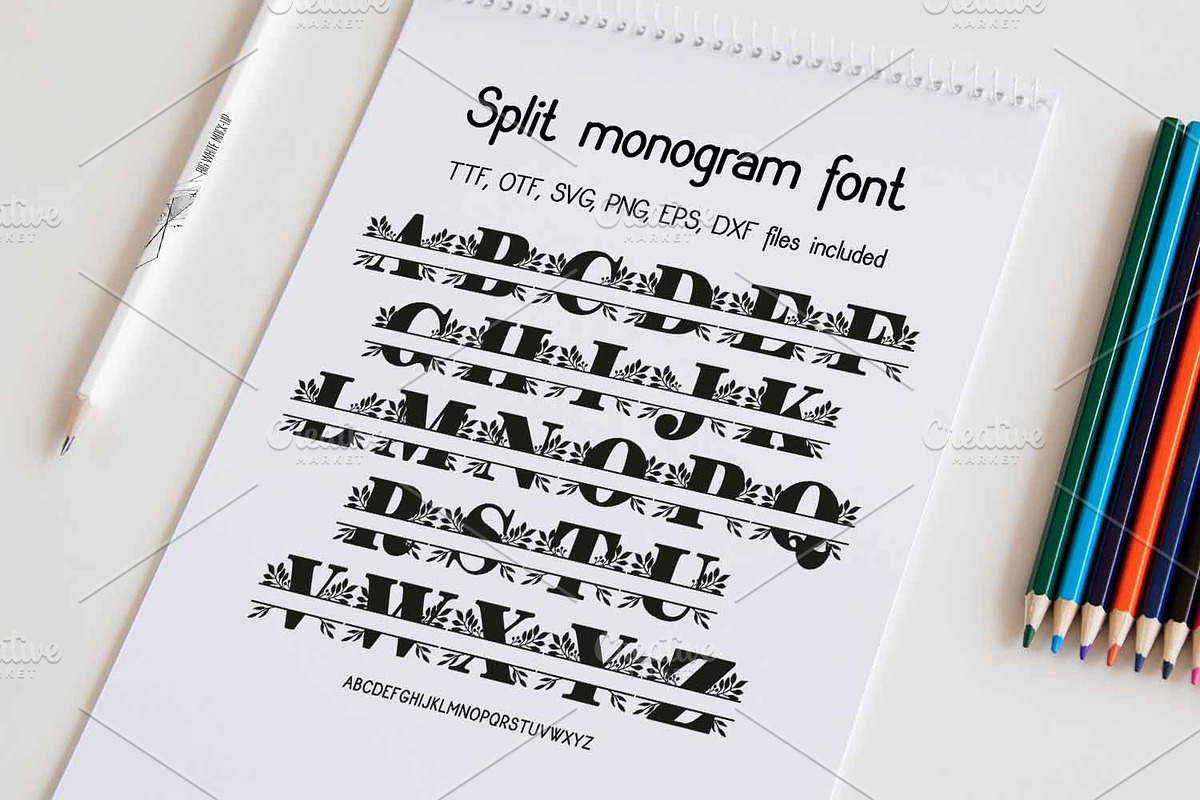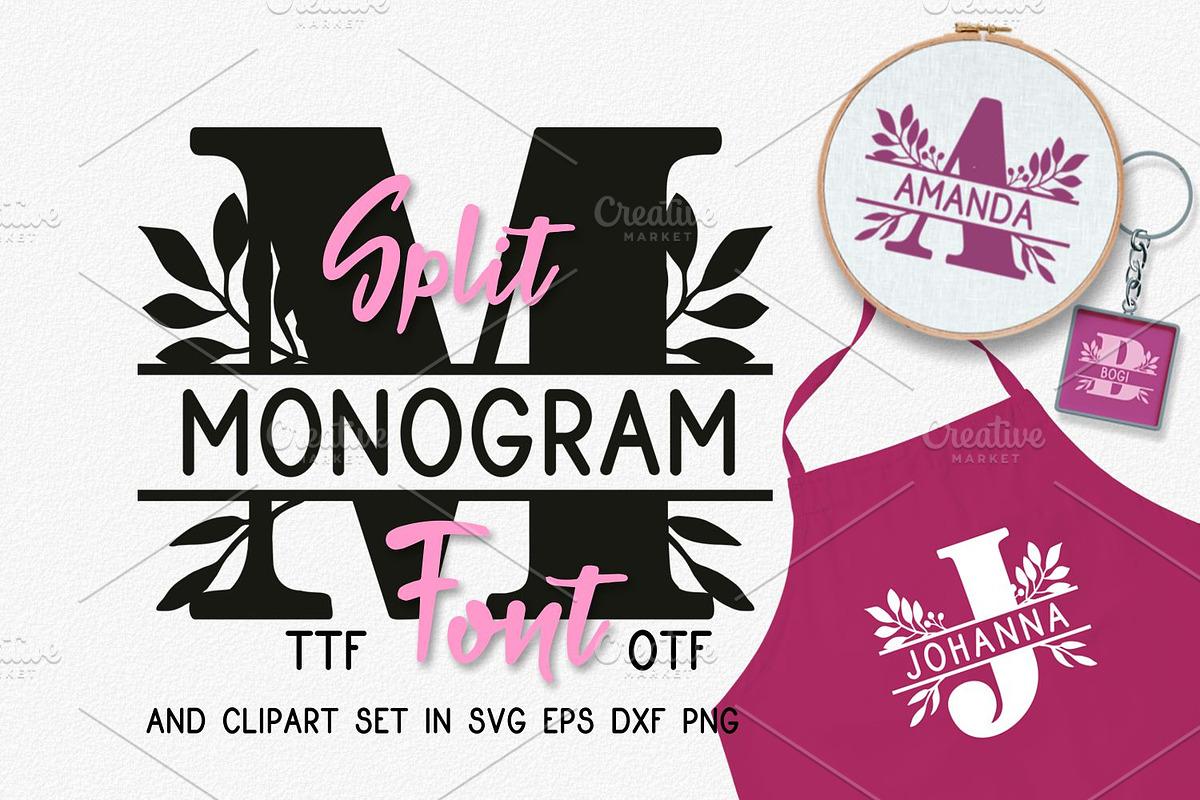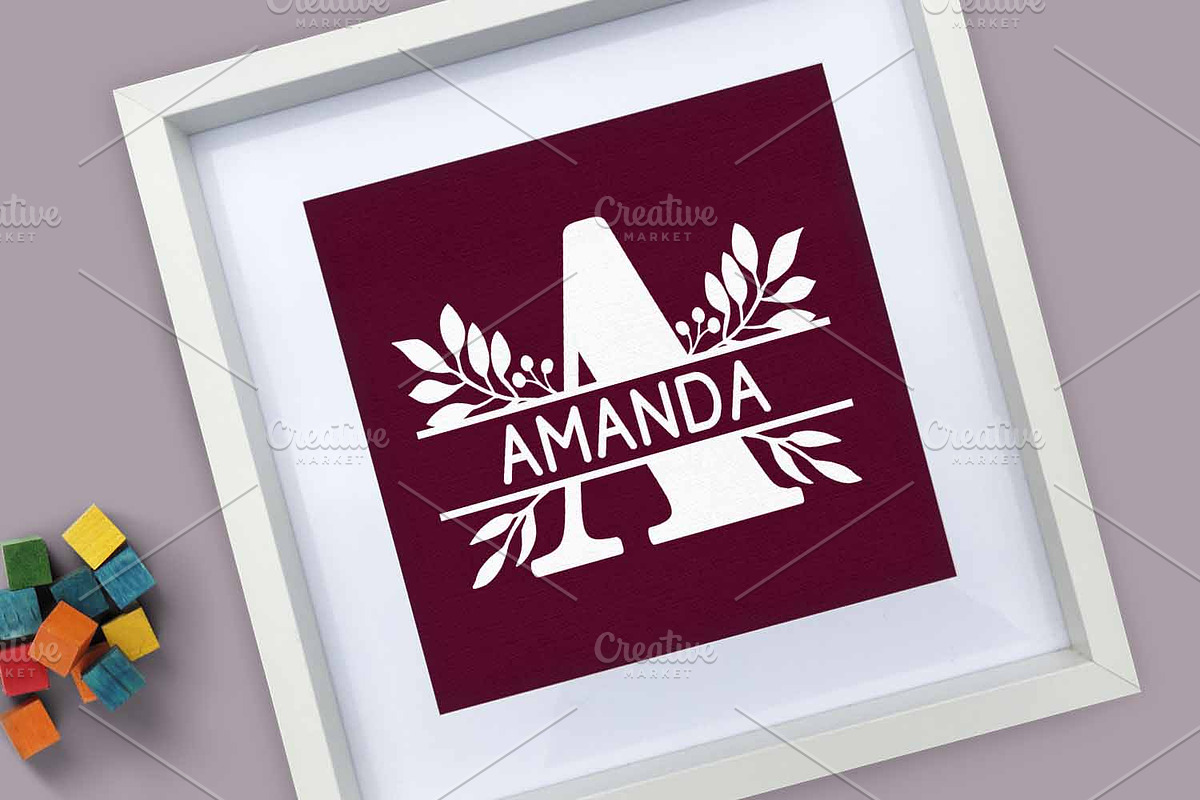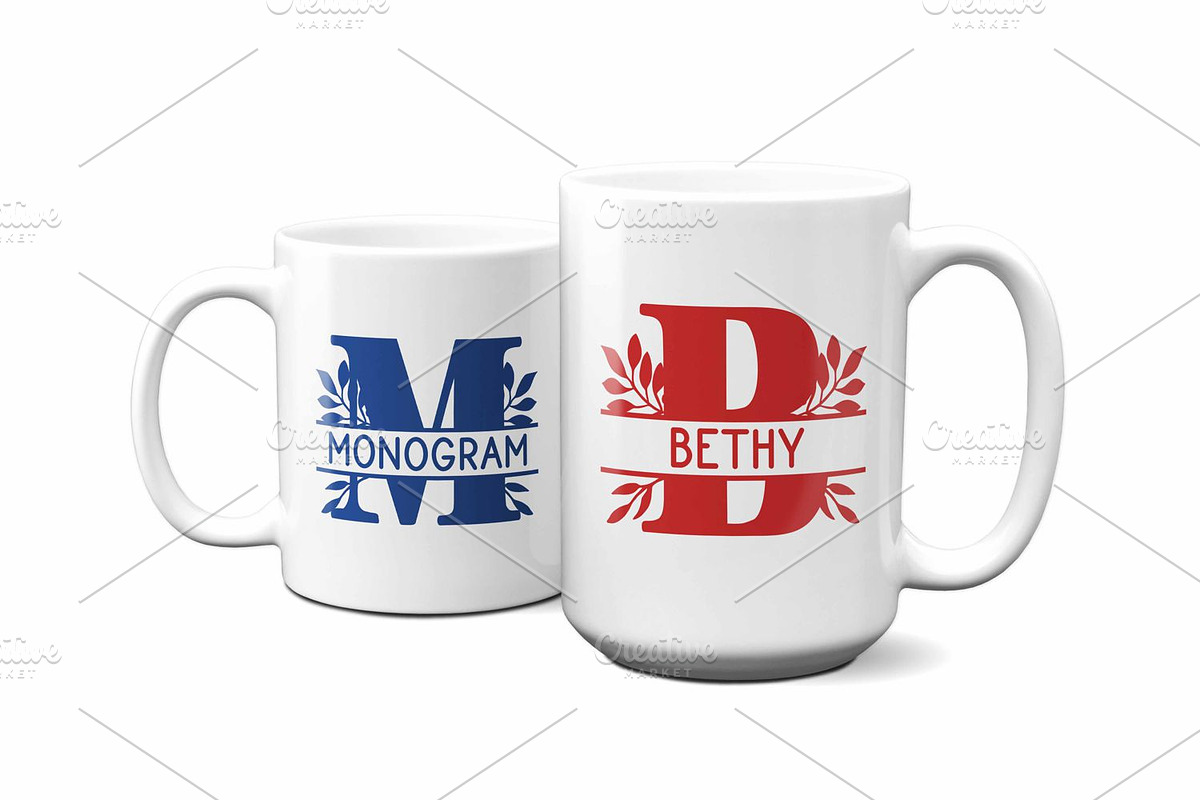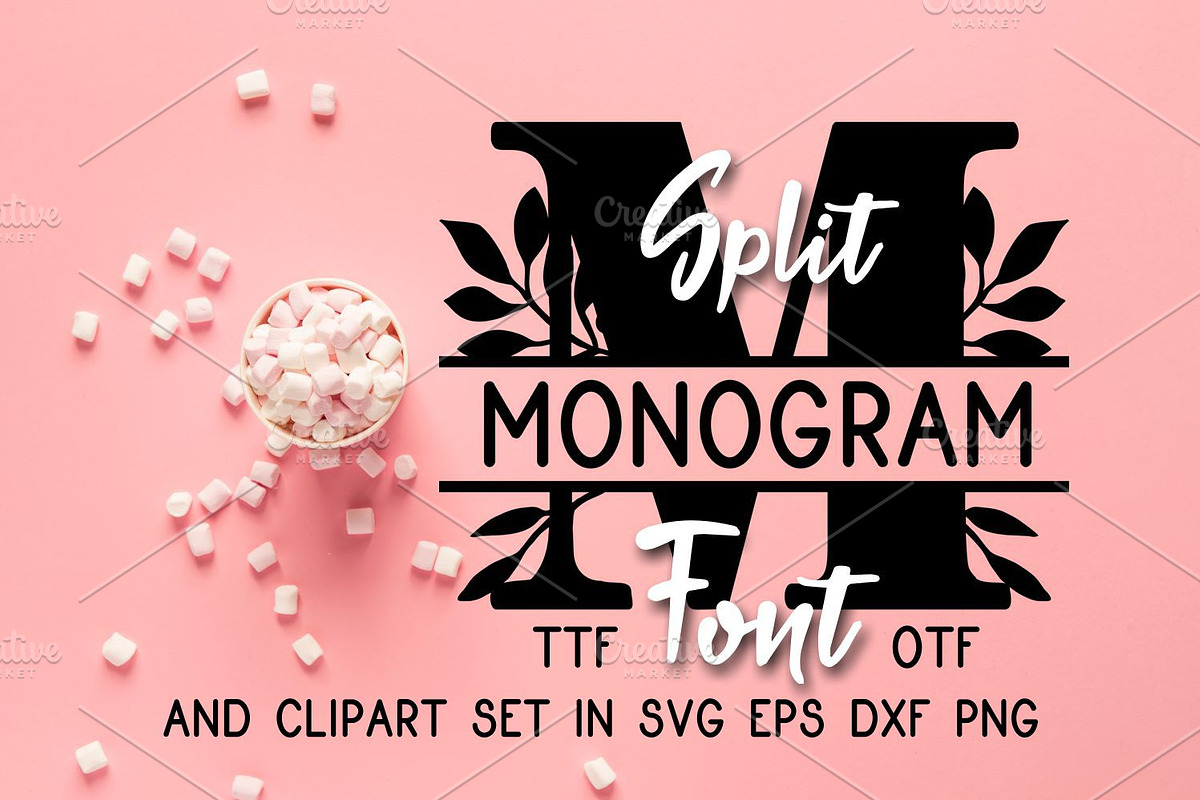
Bogi Split Monogram
Bogi Split Monogram font is a great helper for a vary of craft, sublimation or print projects.
Use uppercases for the split monograms and lower cases for the name.
Tip for getting the monogram and name together: Type the Monogram letter (use upper cases) for the split letter and use lower cases for the name you want it to be in the center of the blank part. As the size fixed, you have nothing else to do but grab the name and pull it to the center of the split letter. Enjoy!
Bogi Split Monogram by Digital Typeface Studio fits naturally into Branding, posters, packaging, typography.